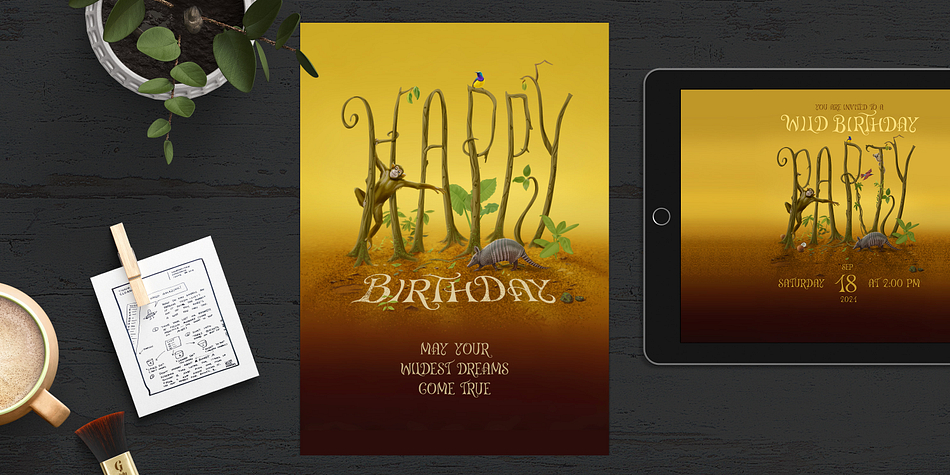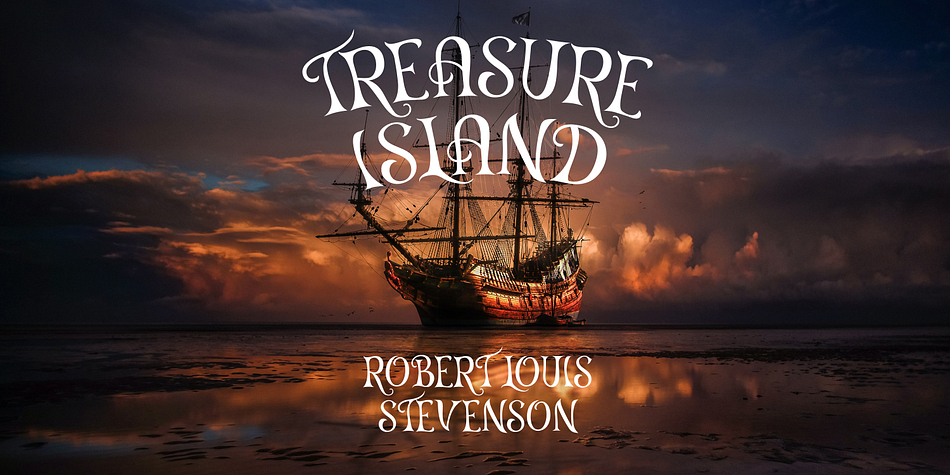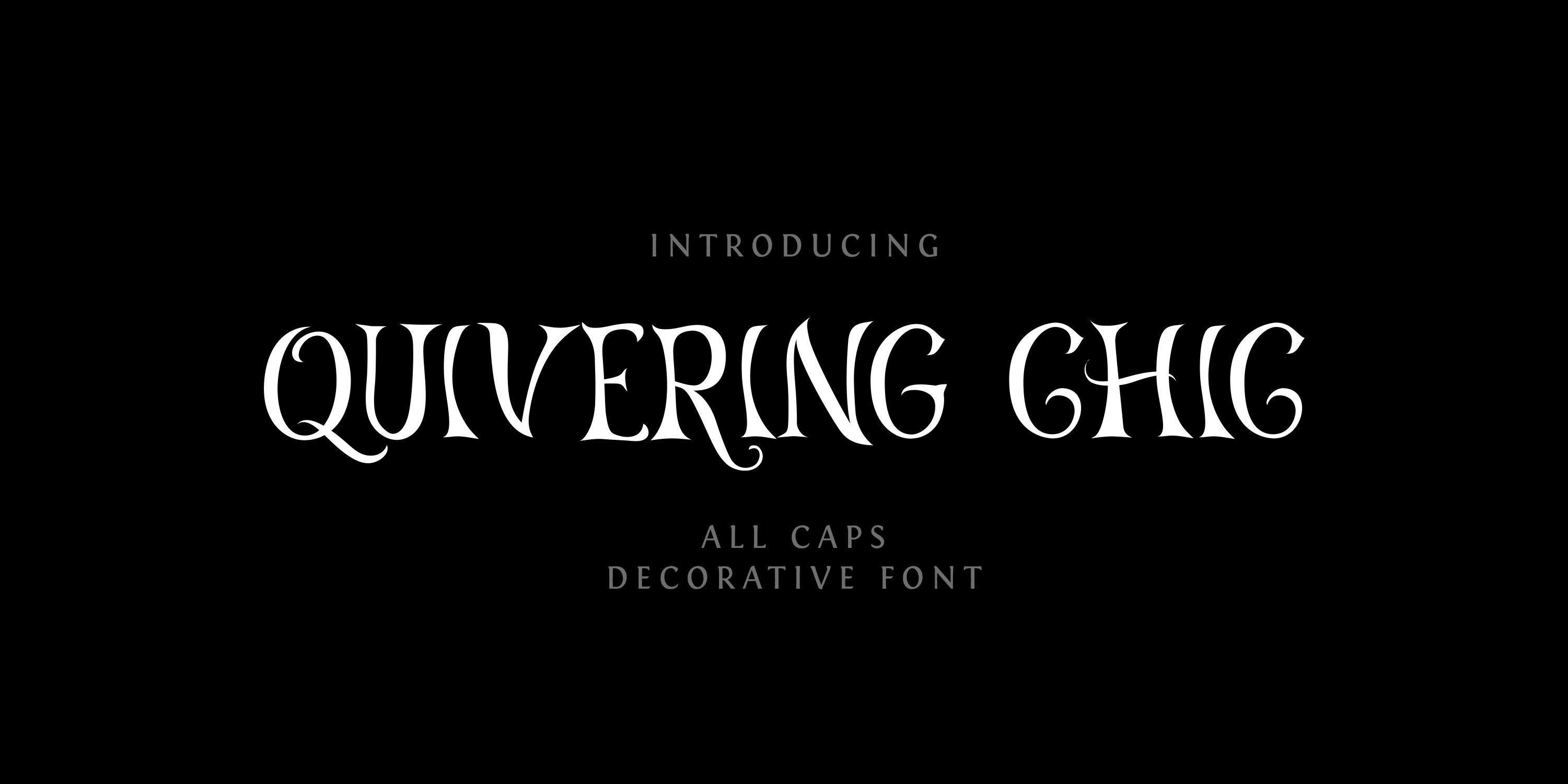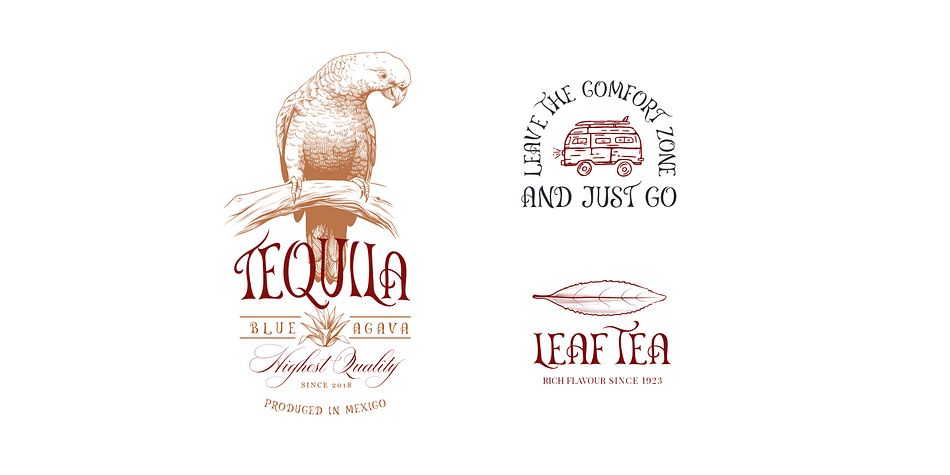
QUIVERING CHIC
Quivering Chic is a display and hand display font published by vatesdesign.
I started designing a birthday card and finished up with this font. It’s a curvy, offbeat, decorative, childish all-caps display font with a hand-drawn feel. Use it for kids’ book covers, for branding and packaging designs, in lettering works, or for headlines. The font consists of capitals, digits, basic punctuation marks, and currency symbols.